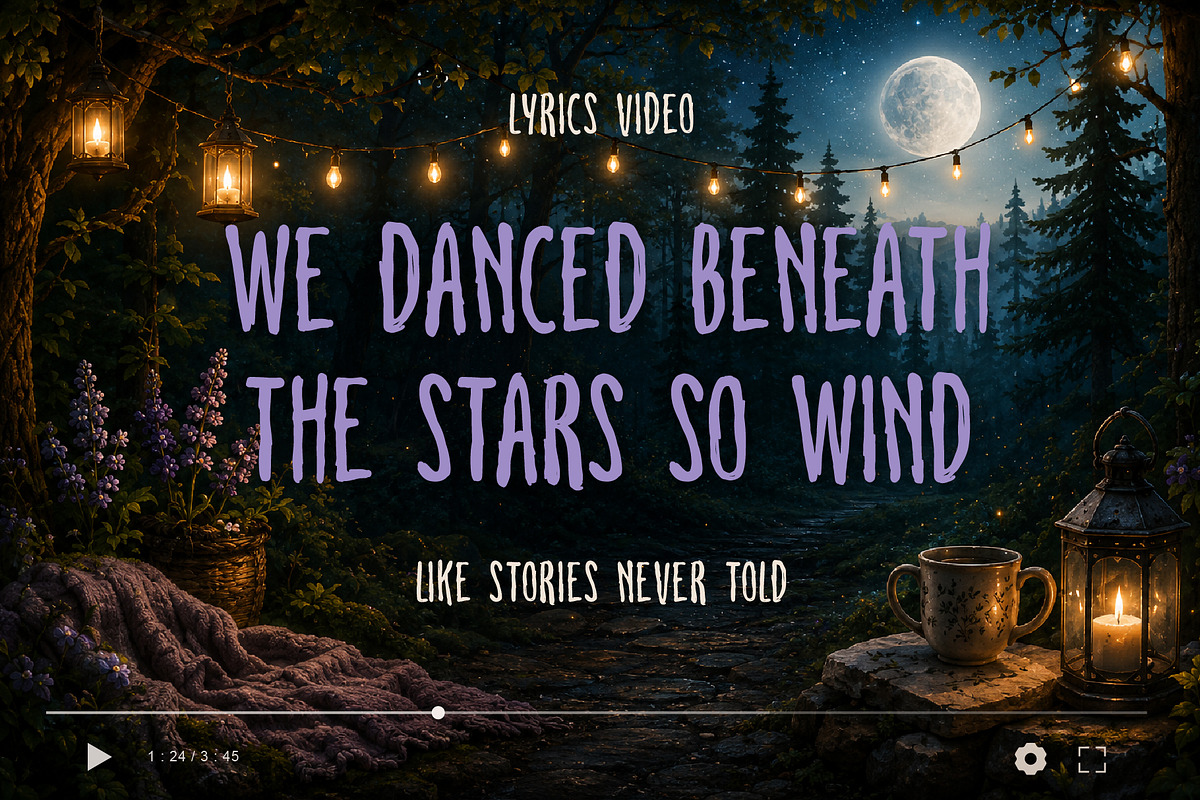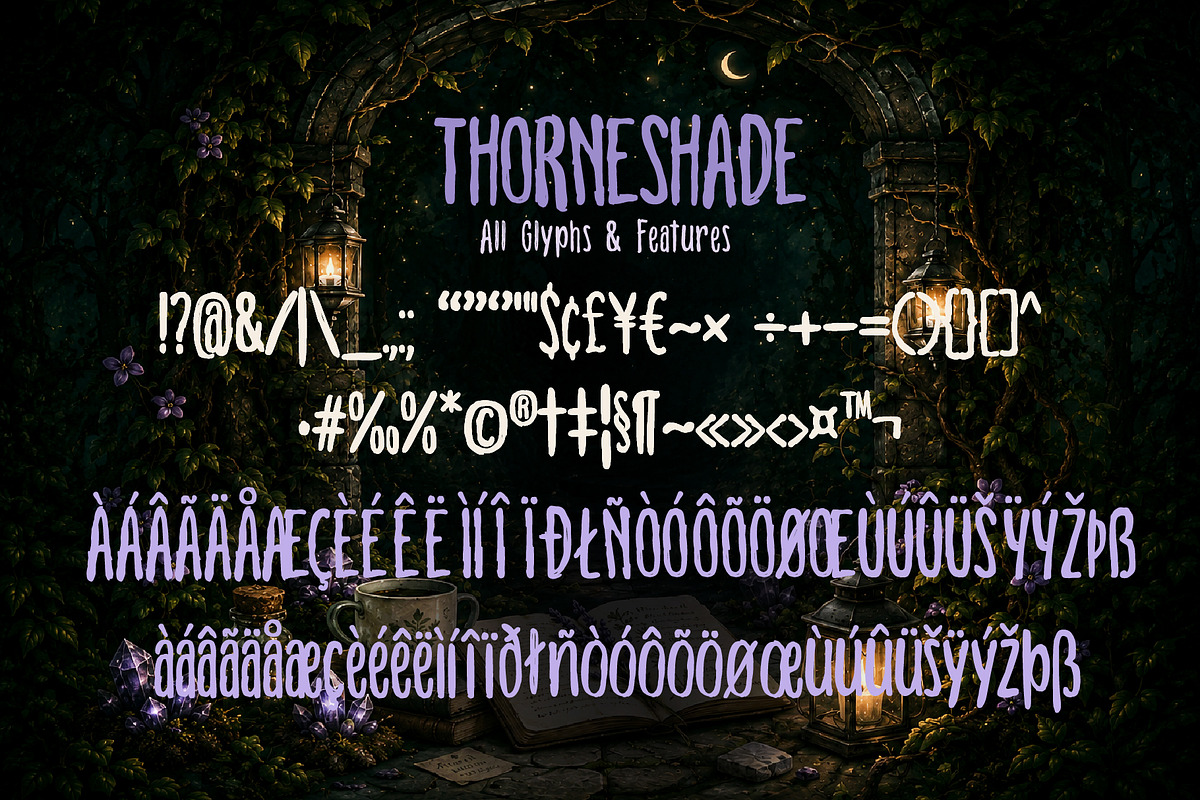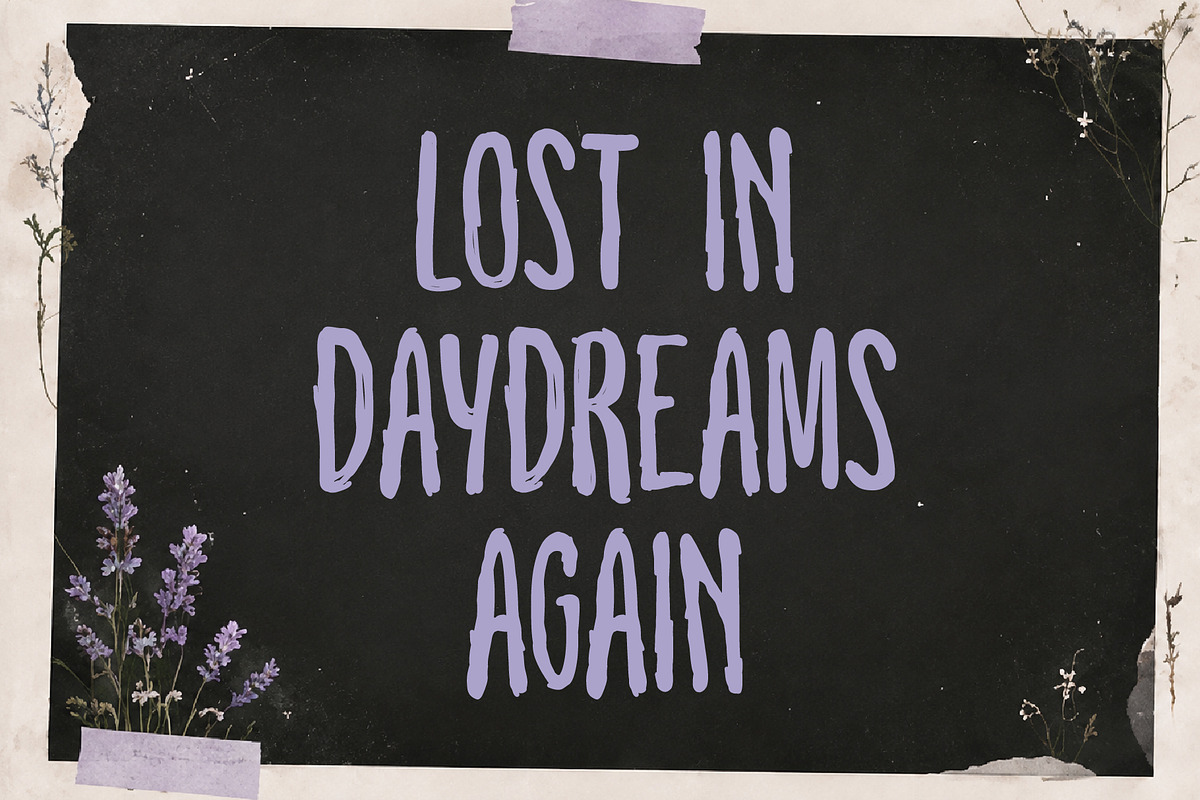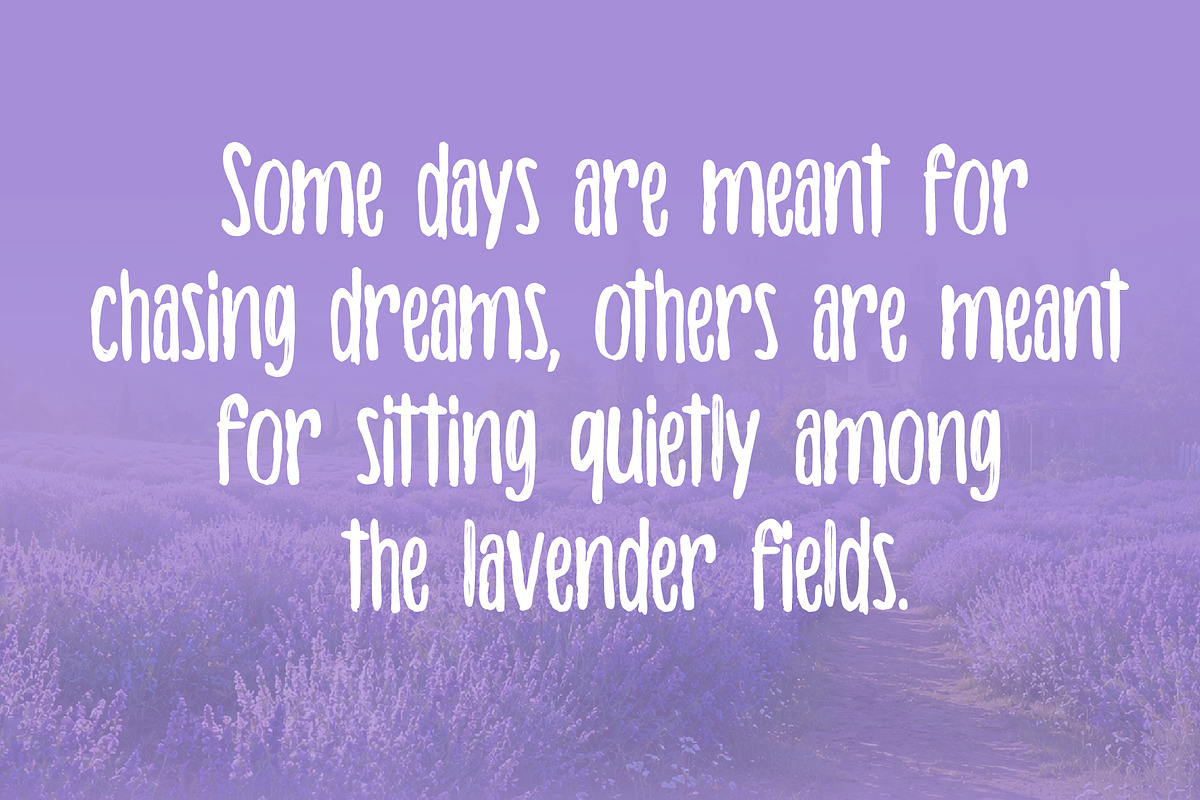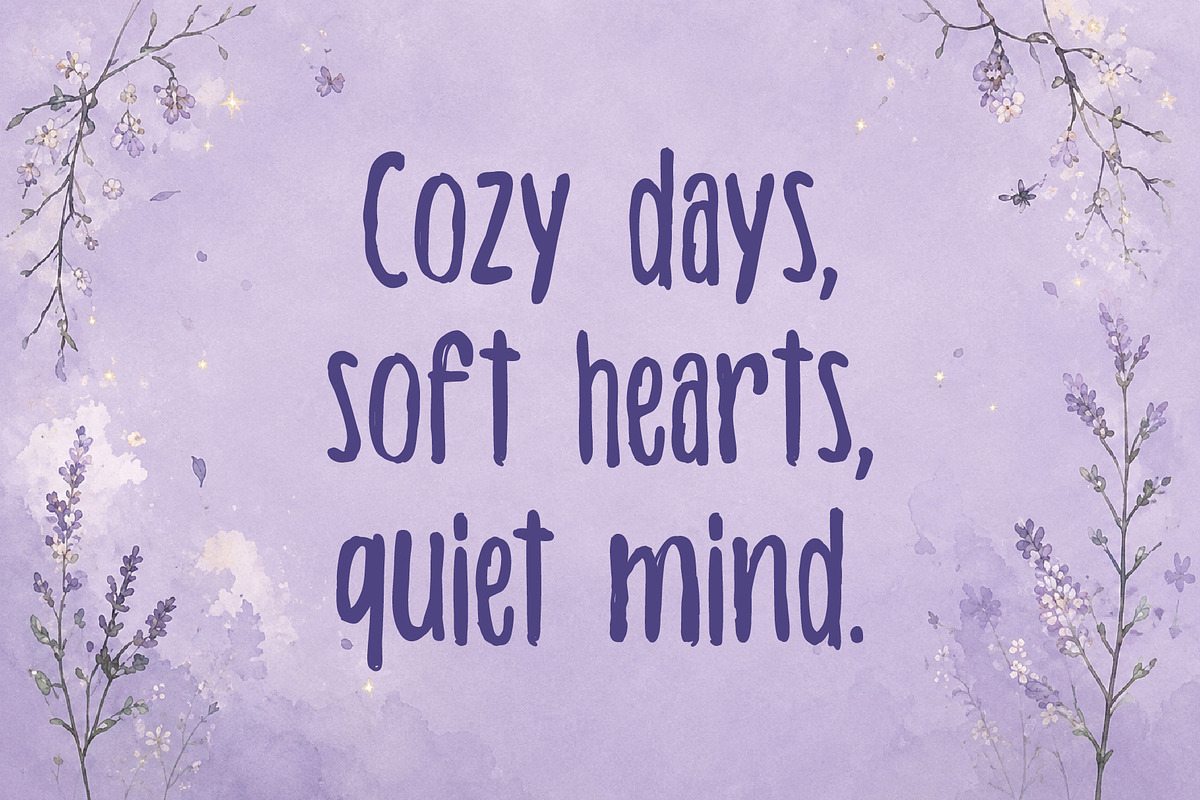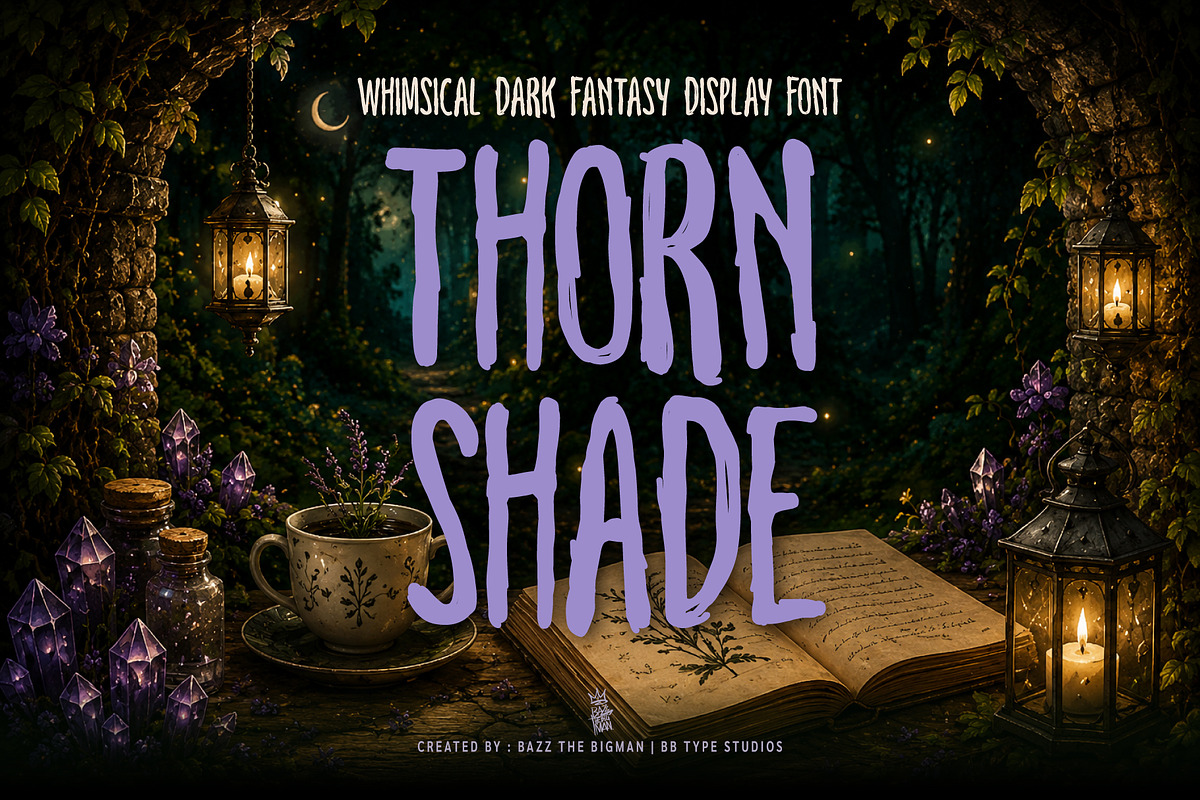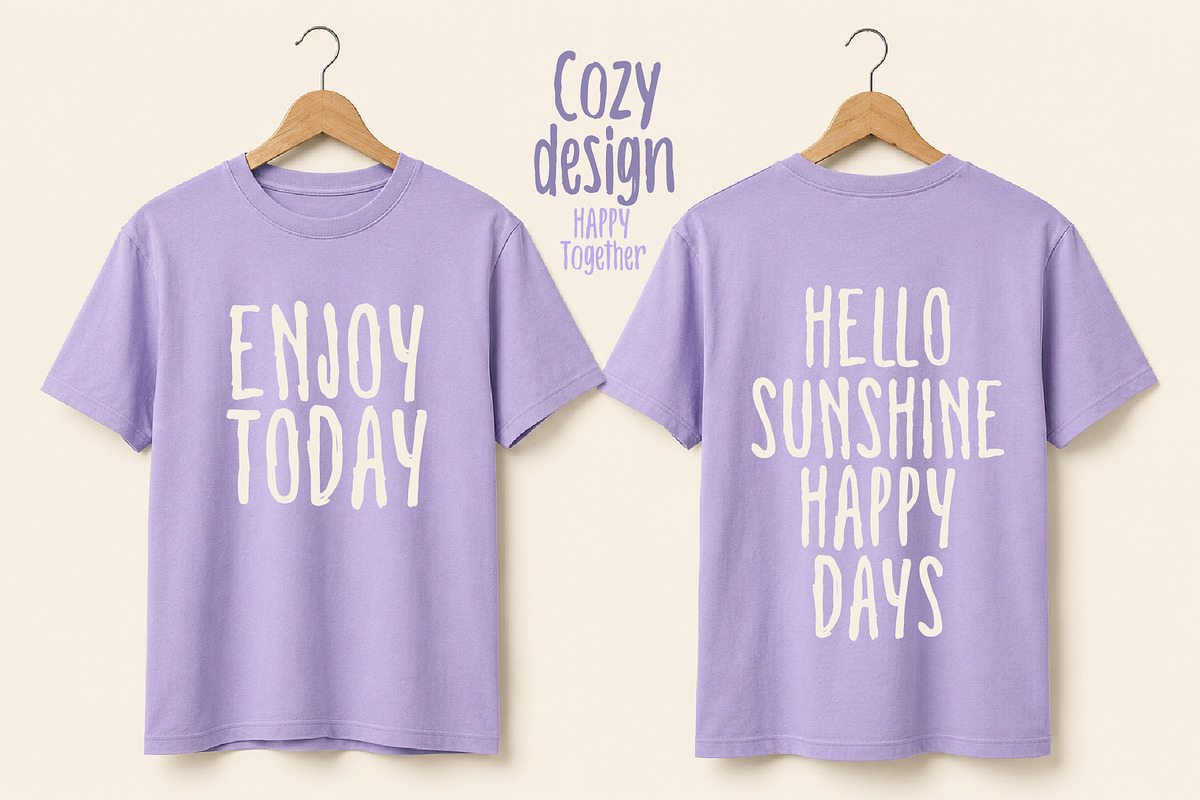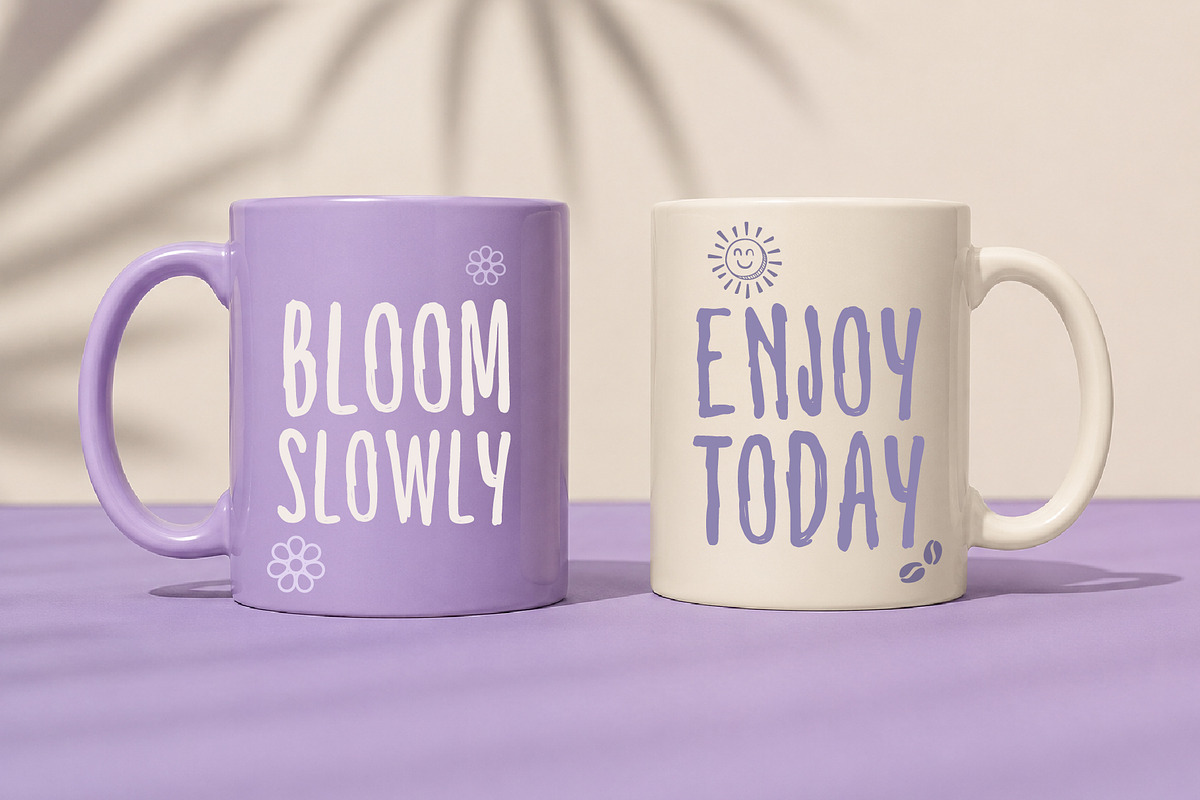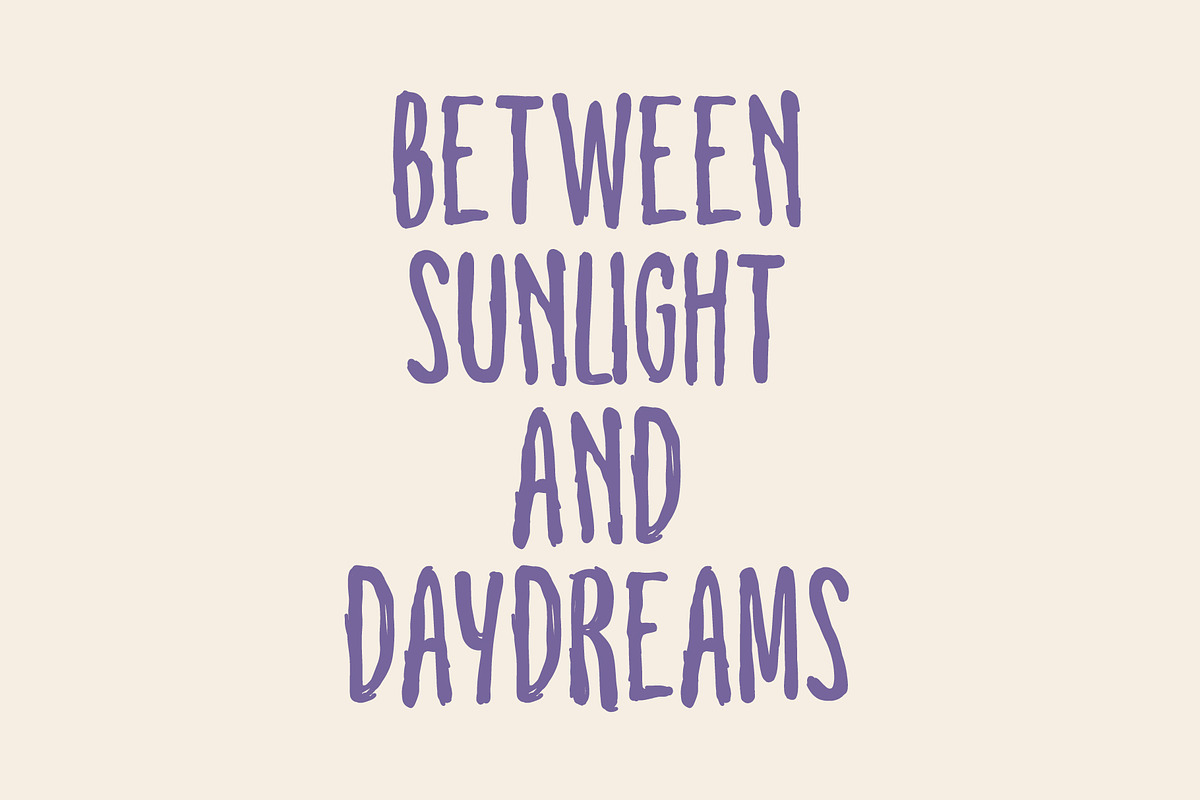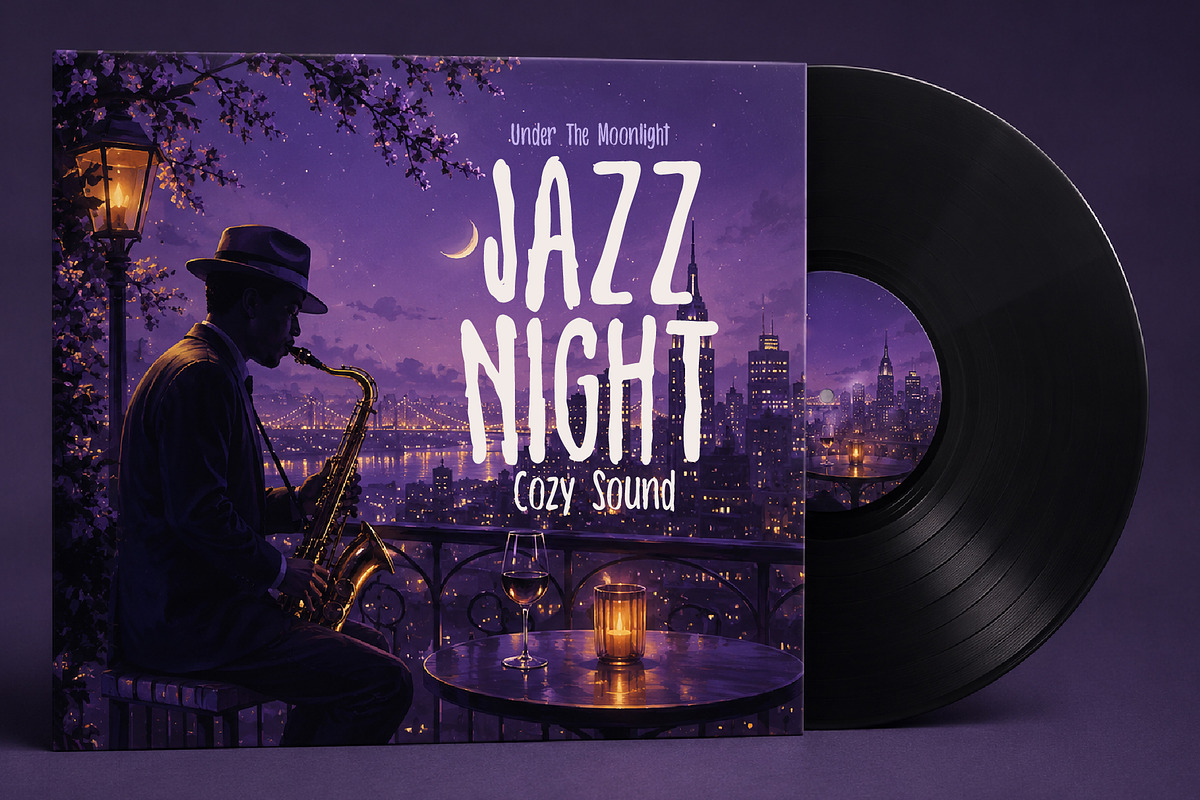
Thorn Shade
THORNSHADE is a whimsical dark fantasy display font inspired by enchanted forests, moonlit tales, forgotten storybooks, and cozy cottagecore aesthetics.
With its handcrafted, imperfect letterforms and charming organic texture, THORNSHADE brings a magical storytelling atmosphere to any project. Whether you're designing fantasy book covers, game titles, lyrics videos, quote graphics, posters, journals, packaging, or cozy lifestyle branding, this font adds warmth, mystery, and personality.
• Fantasy Book Covers
• Cozy Cottagecore Branding
• Lyrics Videos
• Quote Designs
• Storybook Titles
• Indie Game Graphics
• Posters & Social Media
• Journals & Scrapbooks
• Botanical & Lavender Packaging
• Handmade Product Branding
• Uppercase & Lowercase
• Numbers & Punctuation
• Multilingual Support
• Handcrafted Organic Style
• Easy to Use